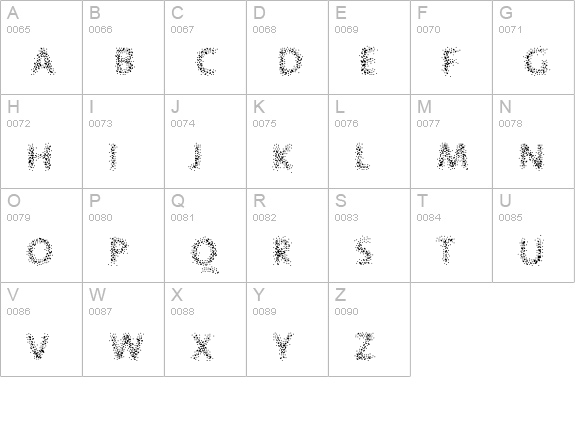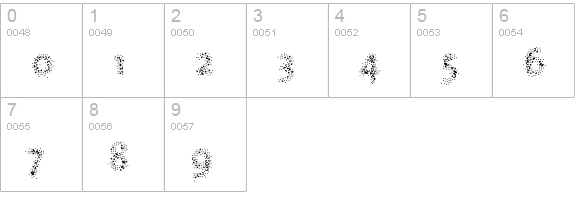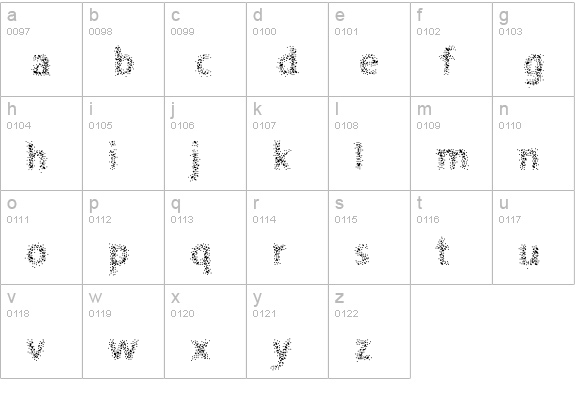
Nebulae Four Font Details
Nebulae Four font is a stunning display typeface that exudes a sense of cosmic beauty and elegance. Its intricate details and unique design make it stand out from the crowd, perfect for adding a touch of sophistication to your projects. This font is ideal for branding, logo design, posters, and more. What sets Nebulae Four font apart is its versatility, allowing you to use it in a variety of design projects to create a captivating visual impact. Whether you are looking to make a bold statement or add a touch of elegance, this font has got you covered. Best of all, Nebulae Four font is available for free download at FontsMarket.com. So go ahead and elevate your designs with this exquisite typeface today!